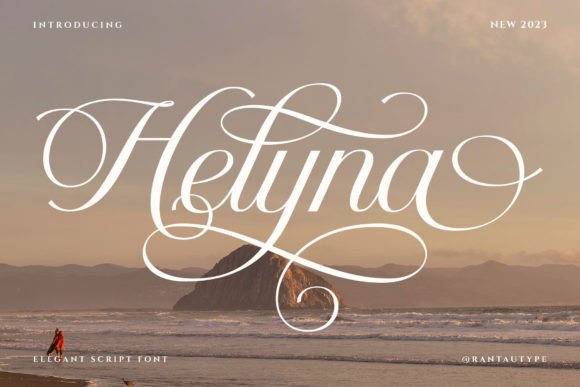
Helyna: A Script Font for Timeless Elegance
When a project calls for a typeface that whispers sophistication rather than shouts for attention, the search can feel endless. You need something that balances fluidity with form, personality with legibility. That’s the space Helyna occupies with quiet confidence. This elegant script font isn't just another cursive option; it's a carefully crafted tool designed to inject a sense of refined grace into your work. Its flowing letterforms mimic the natural rhythm of a skilled calligrapher’s hand, creating a visual cadence that feels both personal and polished.
The character of Helyna is one of understated luxury. Each letter connects with a smooth, intentional flow, avoiding the overly ornate flourishes that can date a design. This gives it a versatile personality—it can feel romantic for wedding invitations, professional for boutique branding, and artistic for editorial layouts. The slightly condensed proportions and consistent stroke weight ensure it remains surprisingly legible, even at smaller sizes, which is a common hurdle for many script fonts. It’s a premium font that understands the need for beauty to be functional.
Where Helyna Truly Shines: Practical Applications
Understanding a font’s strengths is key to using it effectively. Helyna excels in contexts where a human touch and a sense of care are paramount. Think about the first impression of a brand. For a small business owner crafting their brand identity, Helyna can become the cornerstone of a logo, especially for businesses in the lifestyle, beauty, artisan, or consulting spaces. It immediately communicates a commitment to quality and detail. Paired with a clean sans serif font for body text, it creates a beautiful hierarchy that guides the viewer’s eye.
In packaging design, this script font can transform a product from ordinary to coveted. Imagine it on a label for gourmet foods, handmade soops, or specialty teas—it suggests craftsmanship and a story behind the product. For editorial design, it’s perfect for chapter headings, pull quotes, or feature titles in magazines and blogs, adding a layer of sophistication that engages readers. In the digital realm, Helyna brings warmth to web design headers and makes social media graphics stand out in a crowded feed, adding a personal, authentic feel to Instagram posts or Pinterest pins.
Integrating Helyna into Your Creative Workflow
Choosing the right font is a decision that impacts your entire project. When evaluating Helyna, consider the mood you want to set. It’s ideal for projects aiming for elegance, tradition, or a personal connection. A practical next step is to test it within your specific context. Create a mock-up of your logo, lay out a sample invitation, or draft a social media post. See how it interacts with your other design assets and color palette.
One of the most valuable aspects of a well-designed creative font like Helyna is its included features. Being PUA encoded means you have easy access to a full suite of glyphs and ligatures. This allows for nuanced customization. Swapping a standard ‘a’ for a stylistic alternate or connecting letters with a unique ligature can make your text feel truly bespoke. Don’t overlook these details; they are what separate good design from great design.
For any commercial font, always verify the licensing matches your intended use, whether for client work, merchandise, or digital products. When pairing Helyna, balance is everything. Its ornate nature pairs best with simple, geometric serif fonts or modern, minimalist sans serif fonts. This contrast allows Helyna to be the star of headlines without overwhelming the supporting text. Think of it as the focal point in a logo design or the elegant header in a web design layout, supported by clean, readable copy.
Ultimately, Helyna is more than just a collection of letters. It’s a design strategy. It’s for the marketer who knows that typography shapes perception, the crafter who values beauty in the details, and the entrepreneur building a brand with soul. It’s a tool that, when used thoughtfully, doesn’t just display words—it elevates them, turning every project into a statement of timeless style.